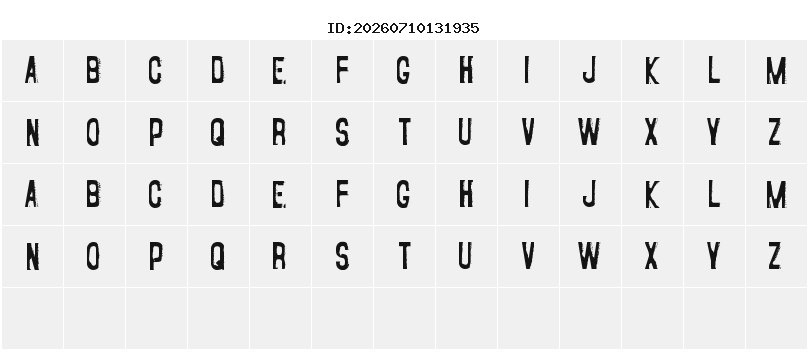
Fear of a Punk Planet Preview
• Font Name: Fear of a Punk Planet
• Full Font Name: Fear of a Punk Planet
About Fear of a Punk Planet.ttf
Fear of a Punk Planet.ttf is a modern, elegant sans-serif font designed for ultimate readability and visual harmony. Perfect for branding, headlines, web design, and print materials.